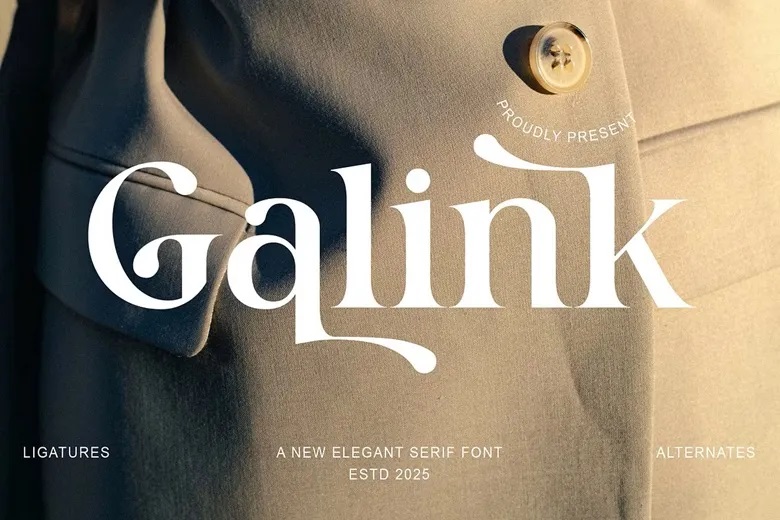
Galink Font
Galink a new elegant serif font. Galink is packed with modern and minimalist look; its a luxurious, classy and clean style that can add to your projects, including websites, modern logos, brand identities, social media quotes, wedding stationery, magazines, etc!
Galink has unique, classy, and capital letters A to Z, also has unique alternates and ligatures to make it an exquisite font to be customized for your diverse projects or jobs. It is perfect for logos, brands, wedding invitations, business cards, greeting cards, posters, magazines, social media, agenda prints and website designs.
Galink Serif Font